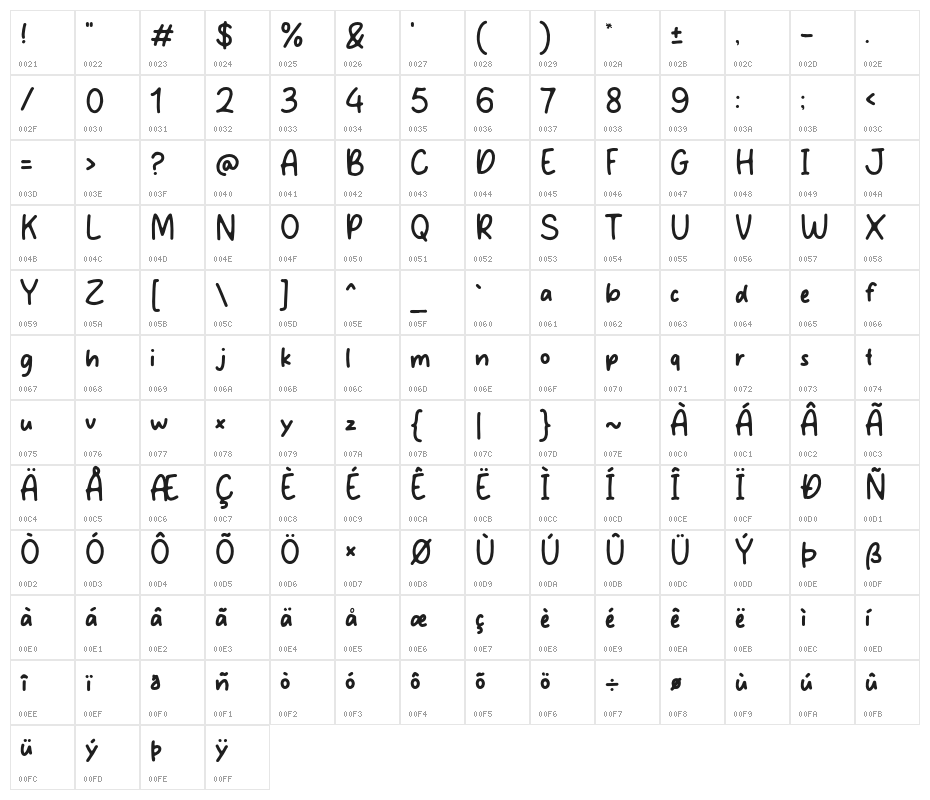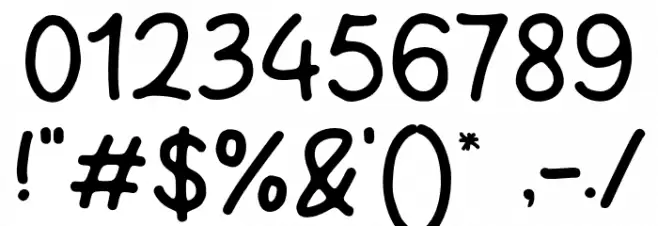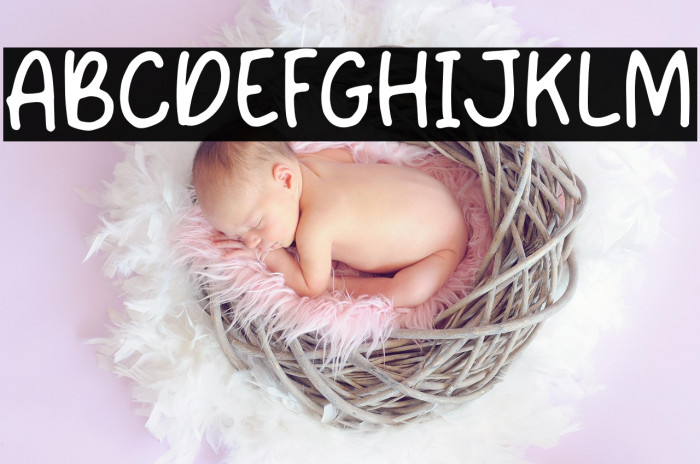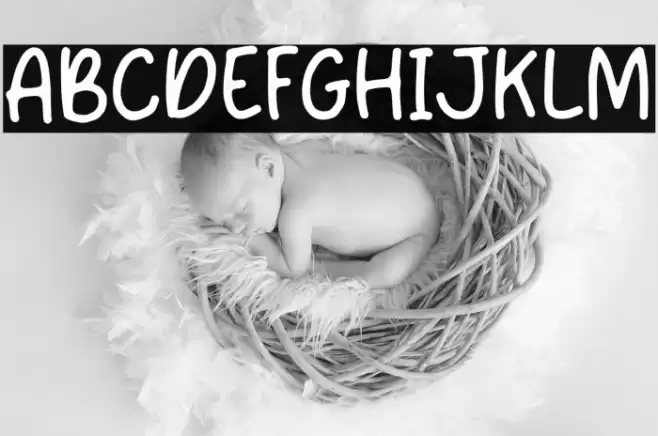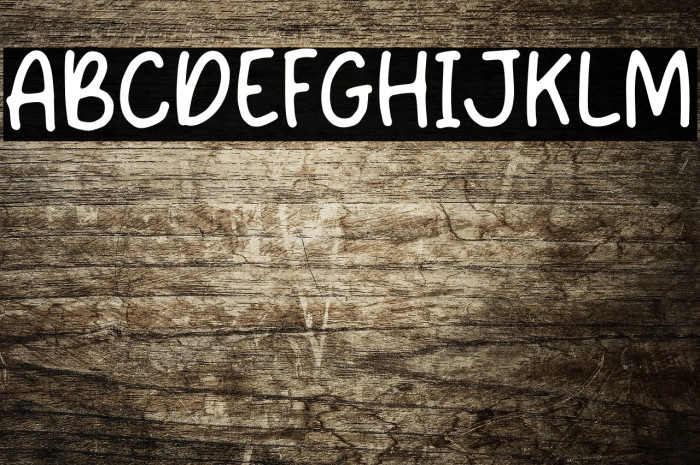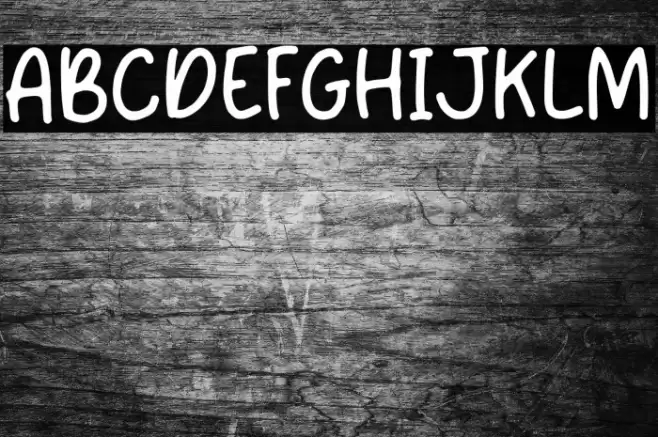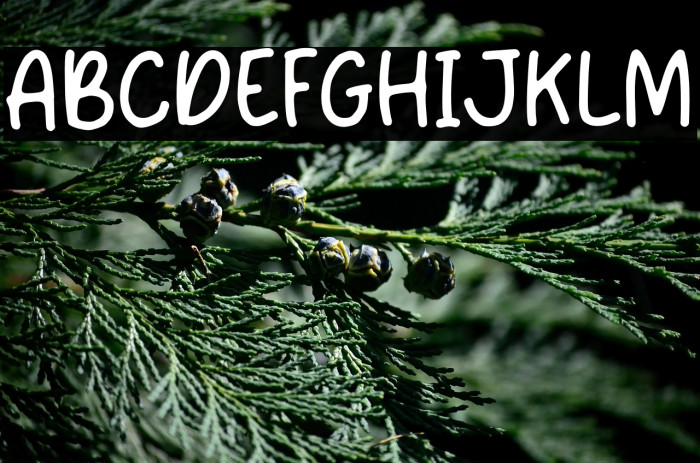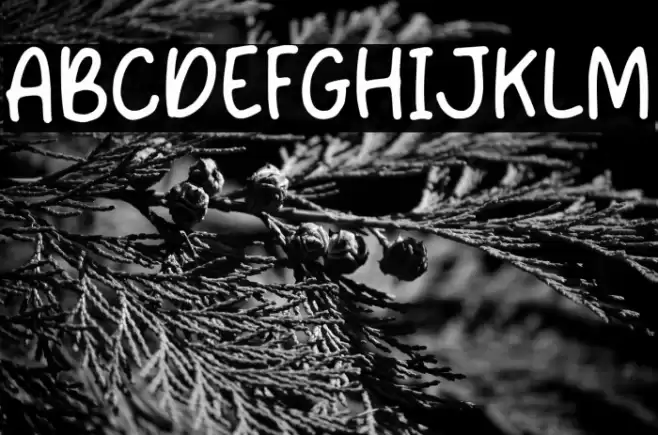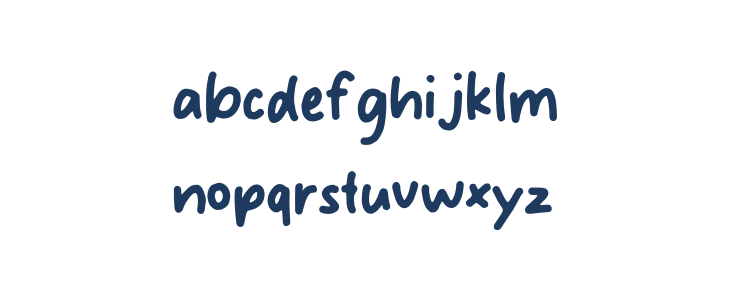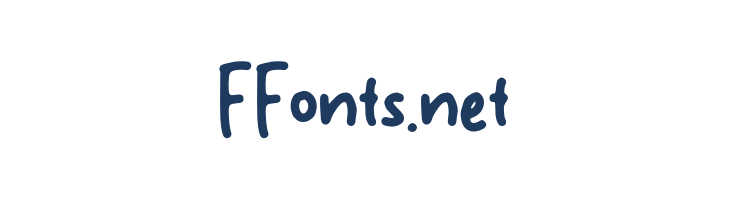
Hand of Jun Font
This font exudes a playful and casual handwritten style, characterized by its rounded and smooth letterforms. The strokes are consistent in thickness, giving it a uniform appearance that enhances readability. Its informal and friendly look makes it suitable for projects that require a personal touch. The characters are well-spaced, ensuring clarity and legibility across different sizes. The font includes a full set of uppercase and lowercase letters, numerals, and a variety of special characters, making it versatile for various design needs.
| Use Case | Headlines, Informal text, Branding |
| Proposed Projects | Ideal for greeting cards, children's books, informal invitations, and playful branding. |